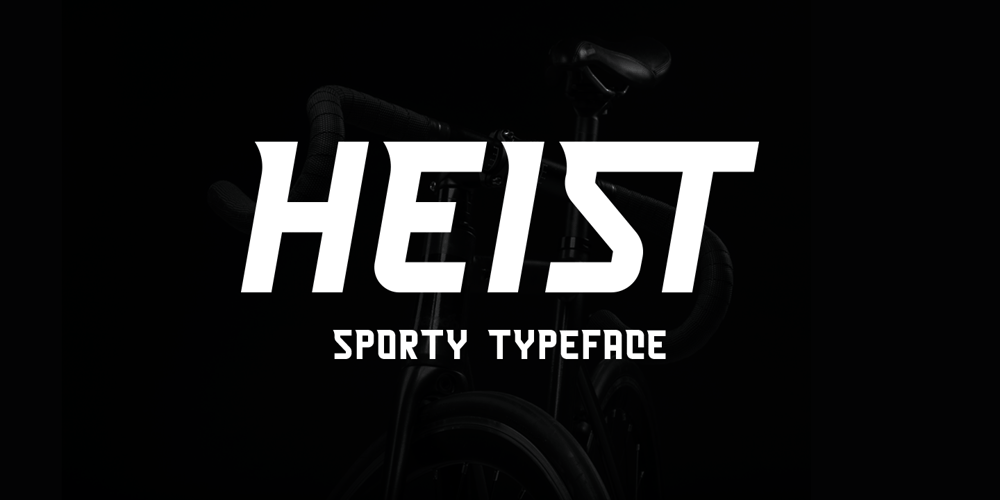
Heist Font Family was designed by Muhammad Fatoni and published by Nyalaapi. Heist contains 2 styles and family package options. Heist is a sporty font, comes with two styles that make perfect for your design. Ideal for branding project, logos, quotes and every other design which need strong feel.Features- 4 Ligatures- Multilingual supportOpen type features can be accessed using Open Type programs such as Adobe Illustrator CS/CC, Adobe Photoshop CS/CC, Adobe Indesign & CorelDraw X6-X7.